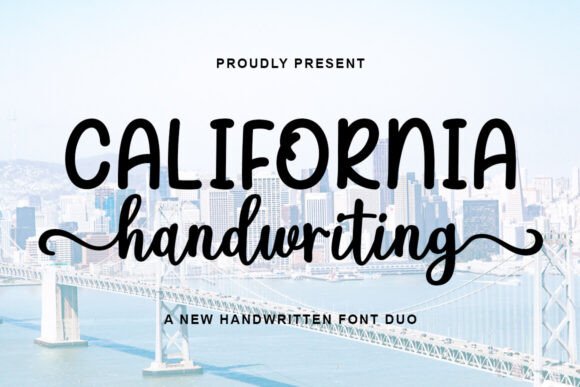
Introducing California Handwriting Duo Font: Elevate Your Designs with Modern Elegance
In the realm of typography, a font can make or break the visual appeal of a design. For those seeking a modern, stylish, and flowing handwritten font, the California Handwriting Duo Font is an exceptional choice. This font duo, consisting of a script and display font, is crafted to bring a touch of elegance and sophistication to a wide range of design projects.
What Makes California Handwriting Duo Font Stand Out?
The California Handwriting Duo Font is distinguished by its beautiful and well-balanced characters. This balance is crucial as it allows the font to complement a broad spectrum of designs, from minimalist to elaborate. Whether you’re working on a logo, branding materials, or inspirational quotes, this font duo is engineered to make your creations stand out.
Key Features of California Handwriting Duo Font
- Modern and Stylish: The font boasts a contemporary look that is both stylish and trendy, making it perfect for designs that require a fresh feel.
- Flowing Handwritten Style: Its flowing nature mimics the elegance of handwritten text, adding a personal touch to any design.
- Beautiful and Well-Balanced Characters: Each character is meticulously designed to ensure harmony and aesthetic appeal, making the font versatile for various design applications.
- Suitable for a Wide Pool of Designs: From logos and branding to quotes and creative projects, this font duo adapts seamlessly, enhancing the visual appeal of your work.
Applications of California Handwriting Duo Font
The versatility of the California Handwriting Duo Font makes it an excellent choice for various design projects. Here are some of the areas where this font duo truly shines:
Logo Design
Creating a memorable logo requires a font that is both unique and legible. The California Handwriting Duo Font, with its distinctive yet clear characters, is ideal for crafting logos that capture the essence of a brand.
Branding
Consistency in branding is key, and typography plays a significant role in this. The California Handwriting Duo Font can be used across various branding materials, ensuring a cohesive and professional look.
Quotes and Typography Projects
For projects focused on quotes, poems, or any typography-centric designs, this font duo offers the elegance and expressiveness needed to convey messages effectively.
Why Choose California Handwriting Duo Font?
Choosing the right font for a project can be daunting, given the numerous options available. Here are reasons why the California Handwriting Duo Font stands out:
Ease of Use
Versatility
The font’s adaptability to different design needs makes it a valuable asset for designers who work on a variety of projects.
Aesthetic Appeal
The modern and stylish look of the California Handwriting Duo Font ensures that your designs have a contemporary edge, making them more engaging and visually appealing.
How to Make the Most of California Handwriting Duo Font
To truly leverage the potential of this font duo, consider the following tips:
Experiment with Ligatures
Take advantage of the PUA encoding to explore different ligatures and glyphs, adding a unique touch to your designs.
Mix and Match
Don’t be afraid to combine the script and display fonts to create a dynamic visual hierarchy in your designs.
Play with Colors and Textures
Further enhance your designs by experimenting with various colors and textures that complement the elegant feel of the California Handwriting Duo Font.
The California Handwriting Duo Font is a powerful tool for designers looking to infuse their projects with a modern, stylish, and flowing handwritten aesthetic. Its versatility, aesthetic appeal, and ease of use make it an excellent choice for a wide range of design applications. Whether you’re working on logos, branding, quotes, or any creative project, this font duo is sure to elevate your designs and make them come alive.
Final Thoughts
In the world of design, typography is not just about conveying a message; it’s about doing so with style and impact. The California Handwriting Duo Font offers a perfect blend of modern elegance and creative expression, making it a valuable addition to any designer’s toolkit.